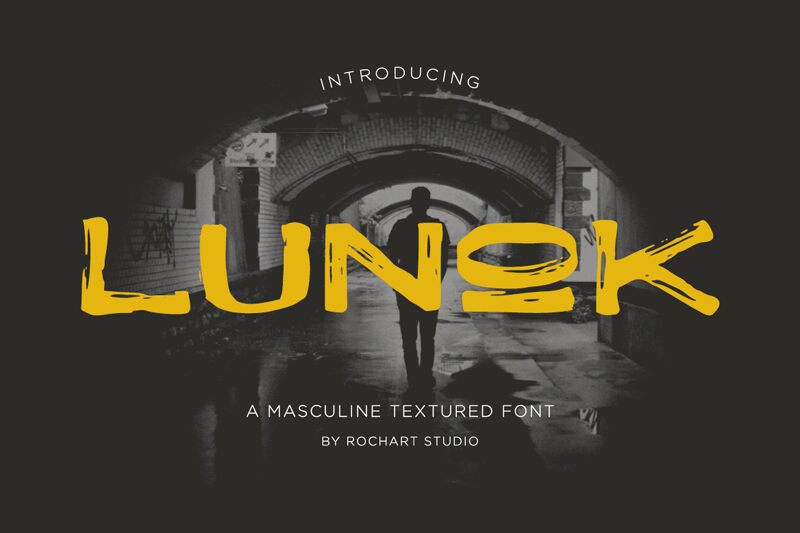
Lunok captivates with its bold brush stroke design, exuding a creative flair that stands out. The expanded characters give it an inviting presence, making each letter feel dynamic and full of life. This font's aesthetic is both playful and expressive, perfect for projects seeking to convey warmth and individuality.
Ideal for branding, invitations, or artful advertisements, Lunok transforms any message into a visual celebration. Its unique styling invites viewers to engage and connects them to the emotion behind the words. Whether used in headlines or prominent signage, Lunok’s distinctive charm ensures it leaves a lasting impression in any design context.
Lunok Regular